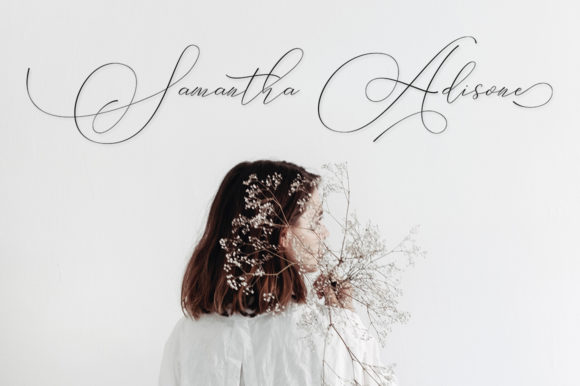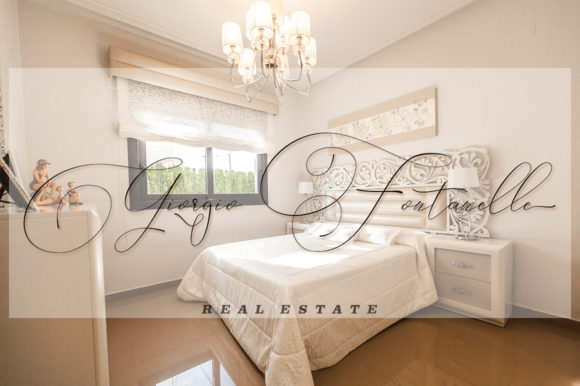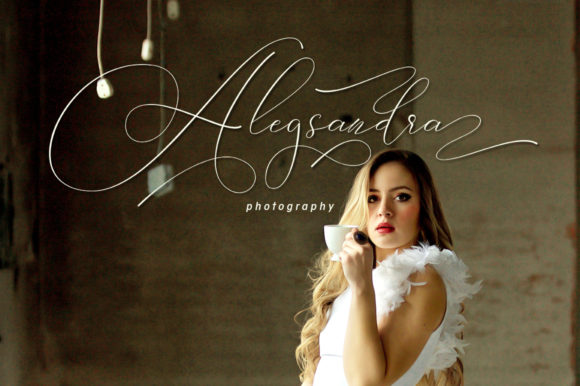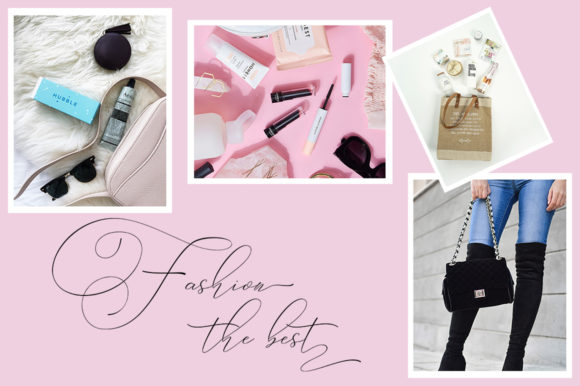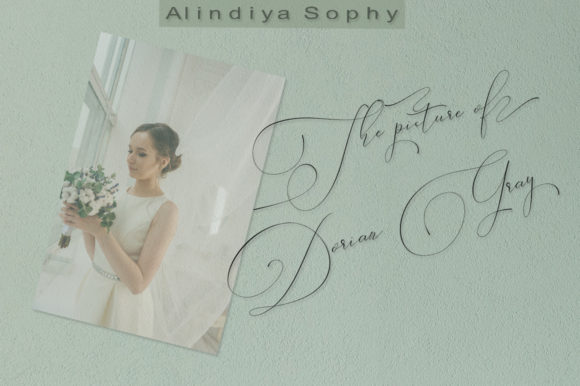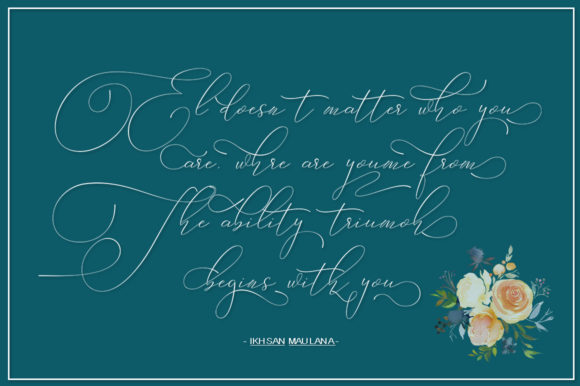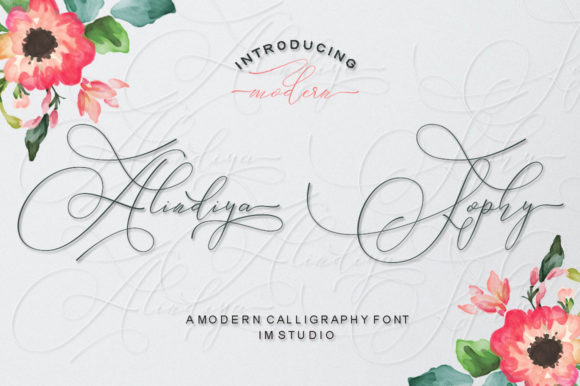
Introducing Alindiya Sophy Font: A Delicate Handcrafted Script with a Romantic Twist
Are you a designer or crafter looking for a font that adds a touch of elegance and romance to your creative projects? Look no further than Alindiya Sophy Font. This carefully handcrafted script font is designed to bring a delicate and sophisticated feel to your designs, with its intricate swashes and flowing curves.
The Story Behind Alindiya Sophy
Alindiya Sophy is more than just a font – it’s a work of art. Crafted with love and attention to detail, this font is designed to evoke a sense of romance and whimsy. Whether you’re working on a wedding invitation, a branding project, or a craft tutorial, Alindiya Sophy is the perfect choice for adding a touch of sophistication and elegance.
Key Features of Alindiya Sophy Font
• Delicate Swashes: Alindiya Sophy features beautiful, intricate swashes that add a touch of romance and whimsy to your designs.
• Handcrafted with Love: Each letter has been carefully crafted to ensure a unique and organic feel.
• Script Font: Alindiya Sophy is a script font with a flowing, cursive feel that’s perfect for adding a touch of elegance to your designs.
• Versatile: Use Alindiya Sophy for a variety of projects, from wedding invitations and branding to crafting and DIY tutorials.
Why Choose Alindiya Sophy Font?
So why choose Alindiya Sophy Font for your next project? Here are just a few reasons:
• Unique and Eye-Catching: Alindiya Sophy is a one-of-a-kind font that will set your designs apart from the crowd.
• Elegant and Sophisticated: This font is perfect for adding a touch of elegance and sophistication to your designs.
• Support for Multiple Languages: Alindiya Sophy supports multiple languages, making it a great choice for designers and crafters working with international clients.
4. Experiment and Have Fun: Play around with different swashes, colors, and design elements to make your project unique.
Need some inspiration for your next project? Here are a few ideas to get you started:
• Wedding Invitations: Use Alindiya Sophy to create beautiful, elegant wedding invitations that set the tone for a romantic and memorable day.
• Branding and Packaging: Add a touch of sophistication to your branding and packaging with Alindiya Sophy.
• Crafting and DIY Tutorials: Use Alindiya Sophy to create eye-catching titles and headings for your crafting and DIY tutorials.
• Social Media Graphics: Create stunning social media graphics with Alindiya Sophy that will help your brand stand out.
Alindiya Sophy Font is a beautiful, handcrafted script font that’s perfect for designers and crafters looking to add a touch of elegance and romance to their creative projects. With its delicate swashes and flowing curves, this font is sure to inspire and delight. So why wait? Download Alindiya Sophy Font today and start creating stunning designs that will leave a lasting impression.